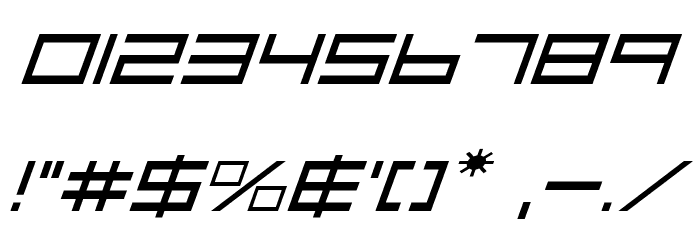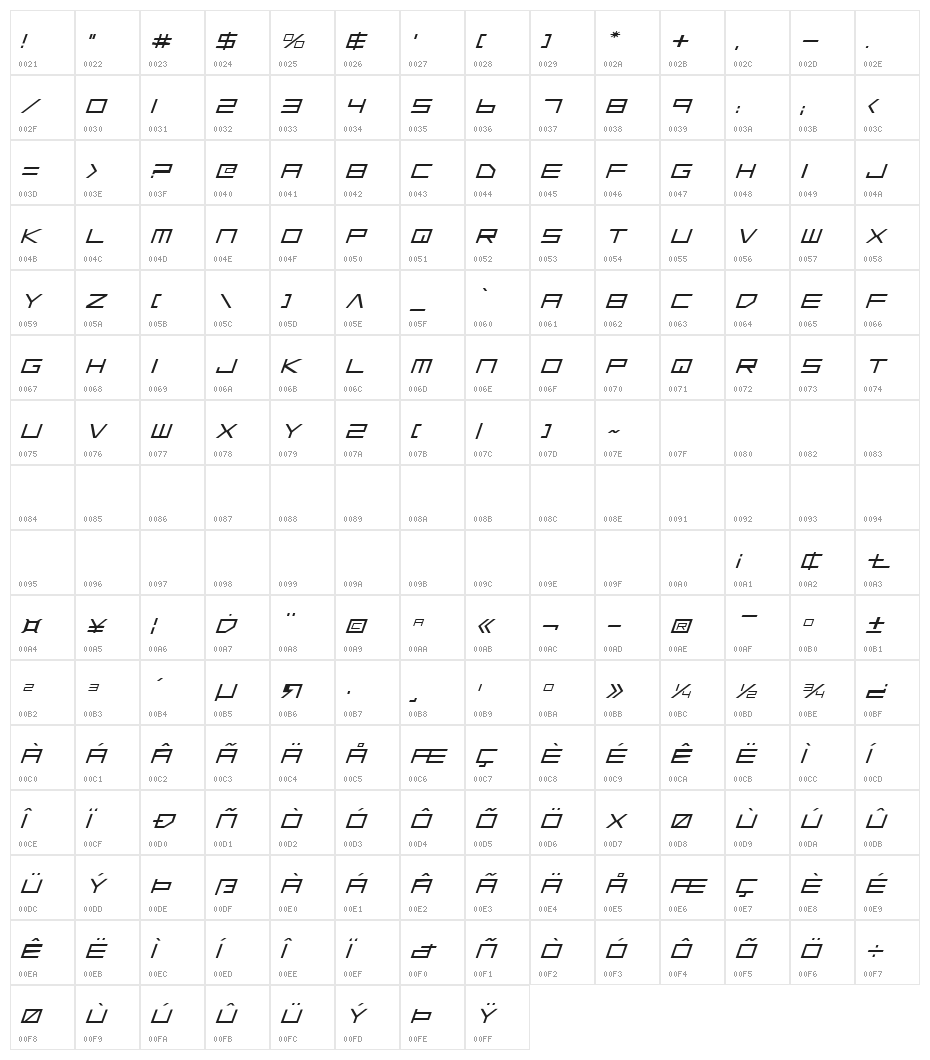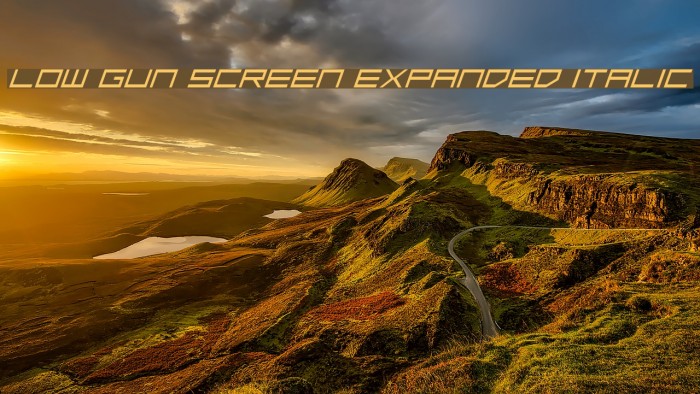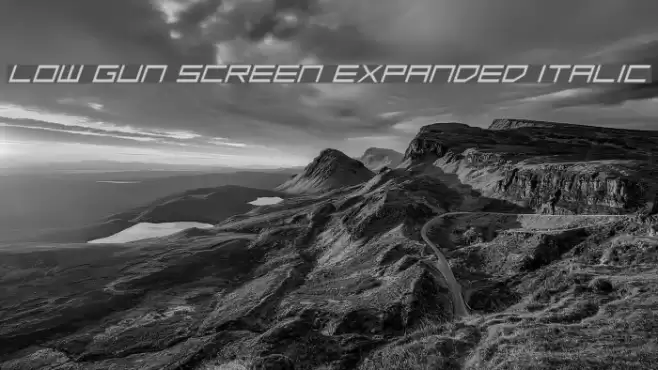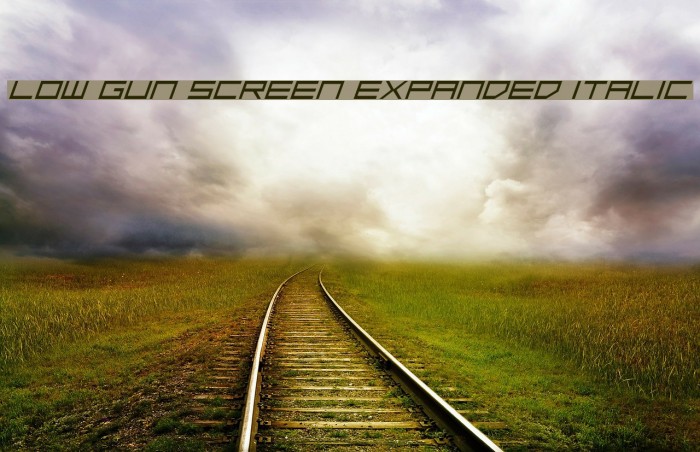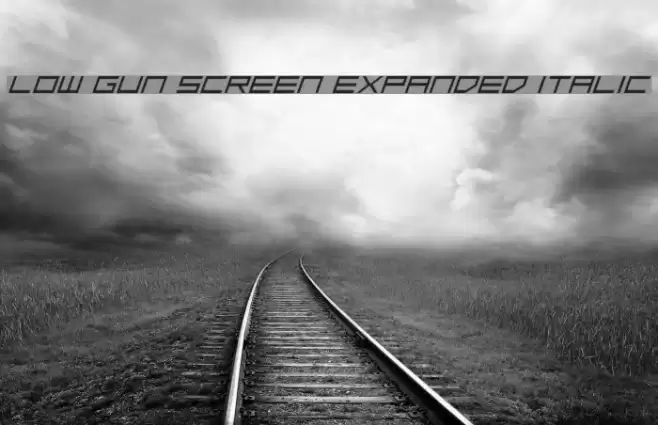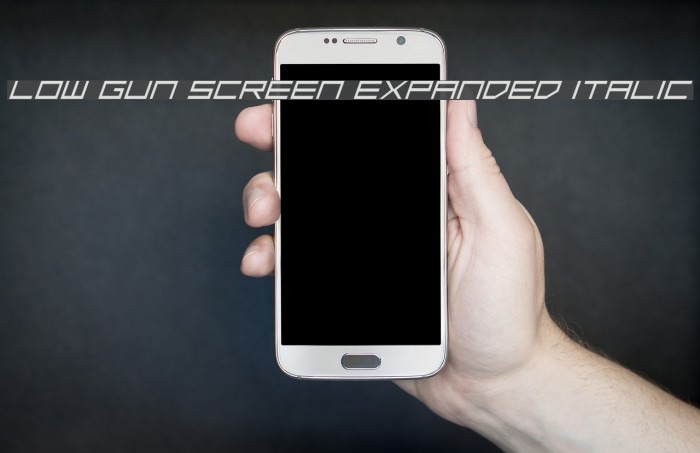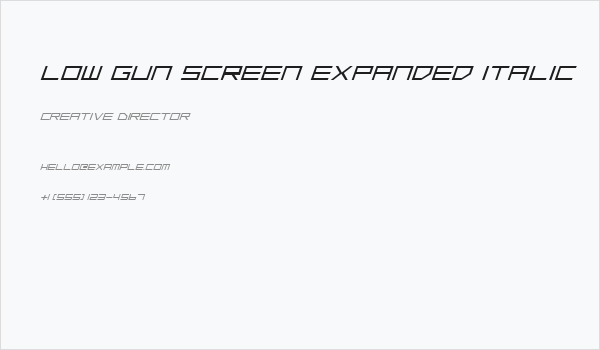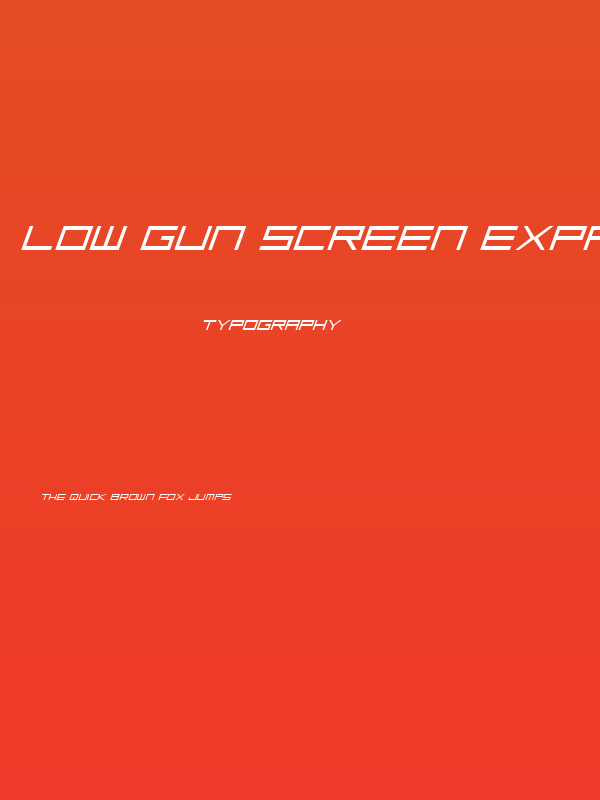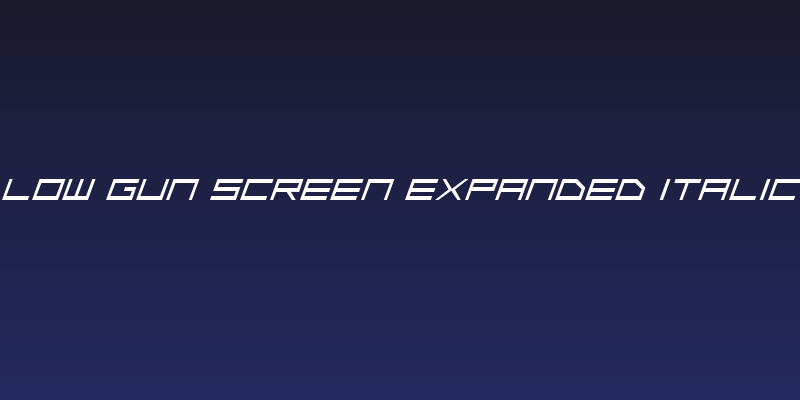
Low Gun Screen Expanded Italic Font
Low Gun Screen Expanded Italic Description
This font features a futuristic and angular design, characterized by its expanded and italicized form. The letters are constructed with sharp, geometric lines that convey a sense of speed and modernity. The uppercase and lowercase letters maintain a consistent style, with a slight slant that adds dynamism. Numbers and special characters follow the same design principles, ensuring uniformity across all glyphs. The font's expanded width gives it a bold presence, making it suitable for attention-grabbing applications. Its unique style is ideal for projects that require a modern and edgy aesthetic.
| Proposed Projects | Ideal for sci-fi themed designs, technology branding, video game titles, and modern posters. |